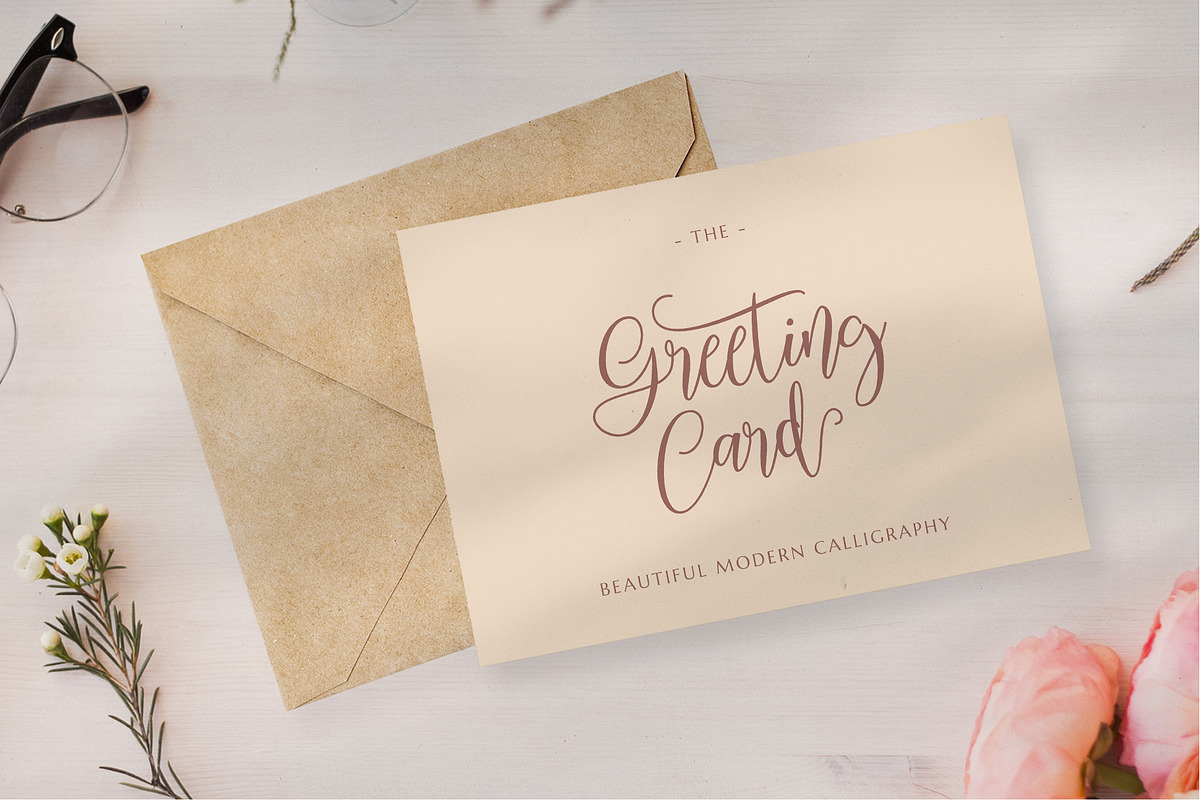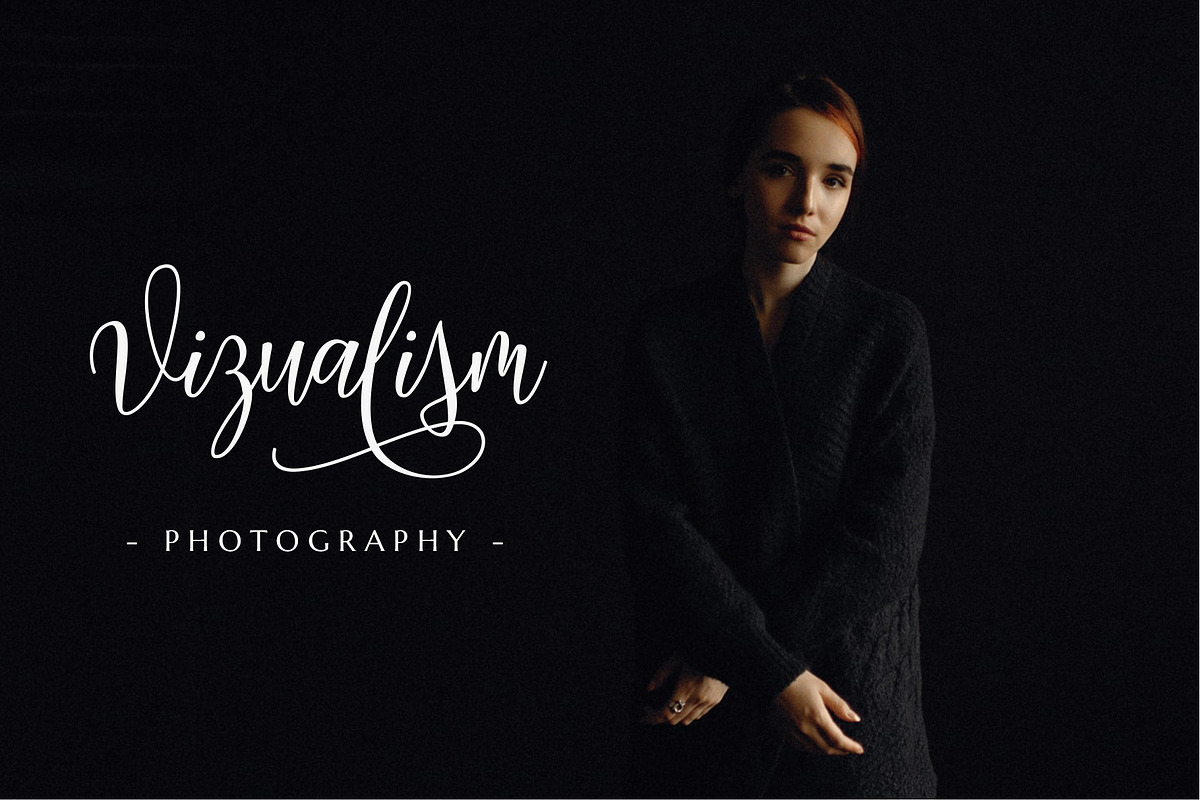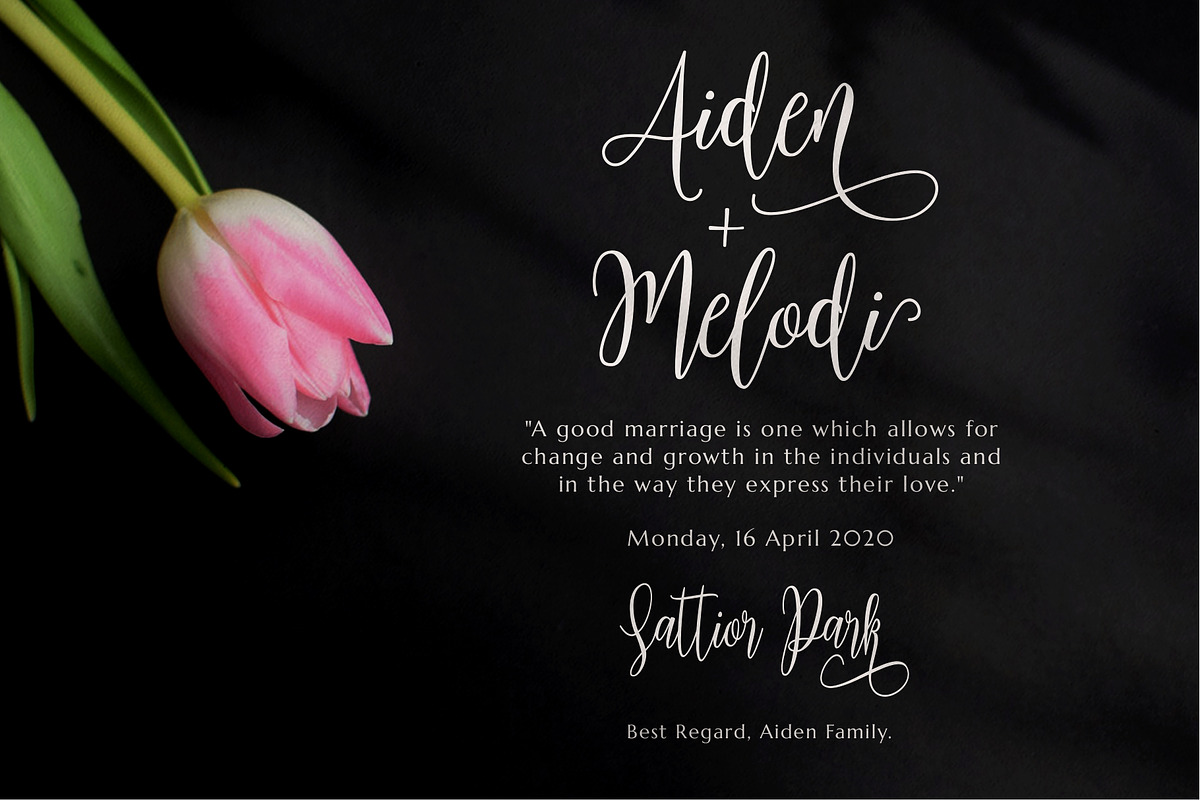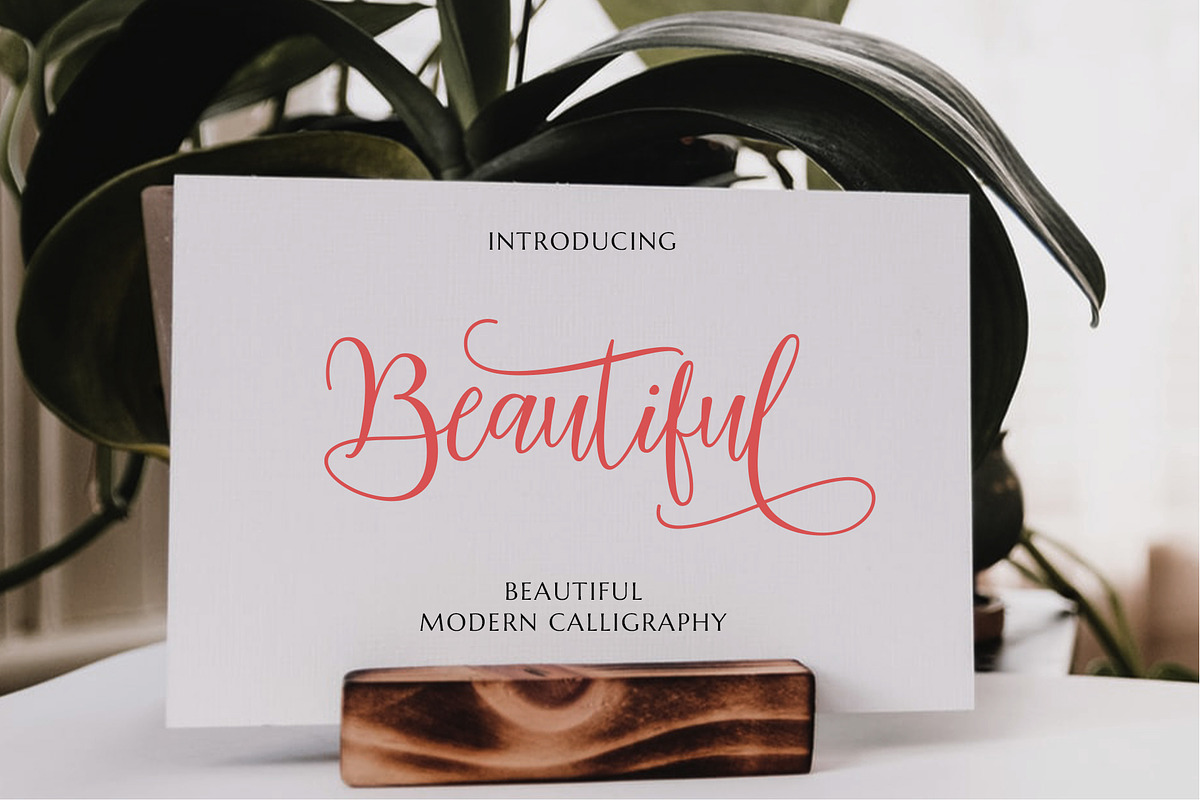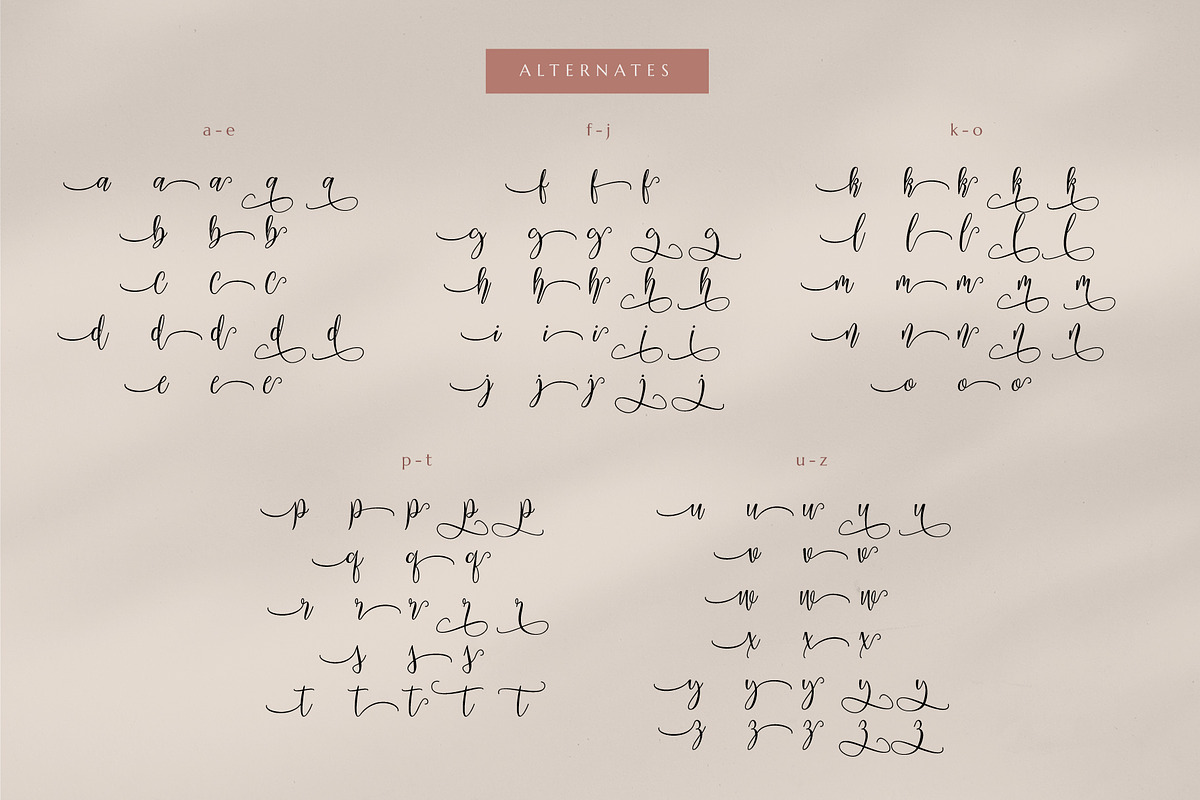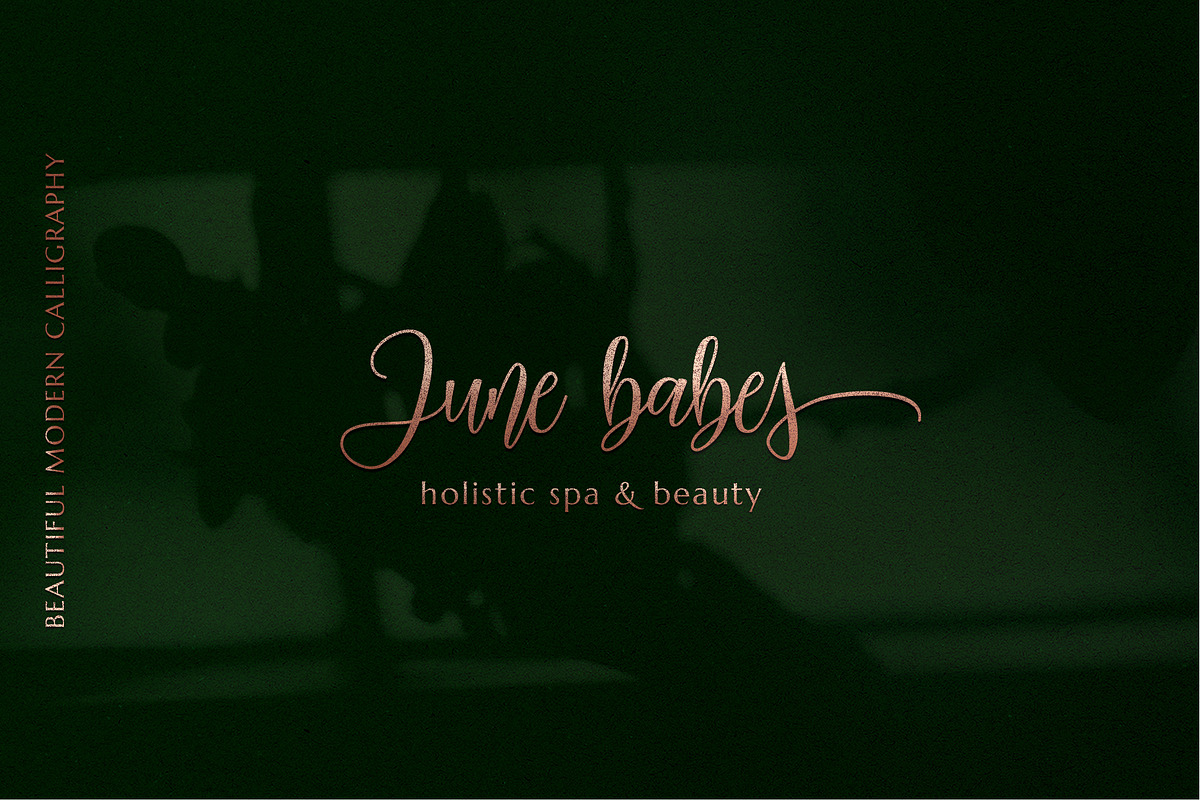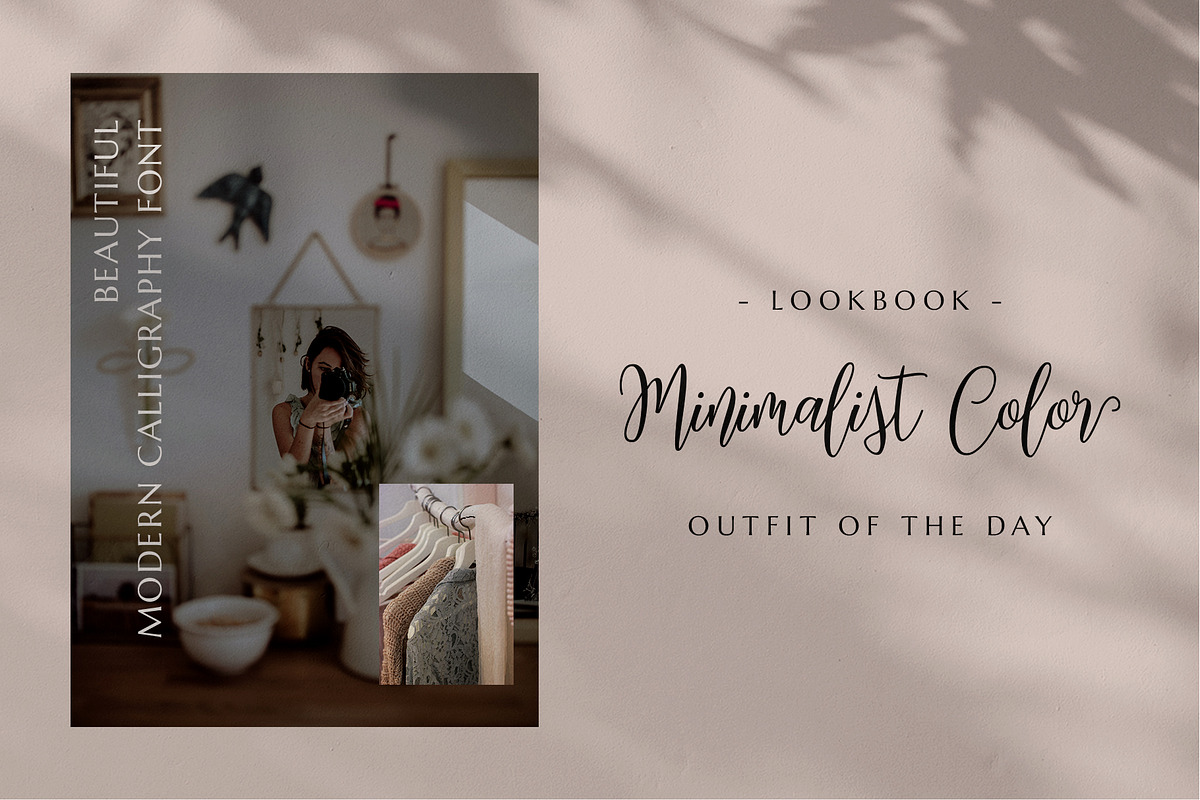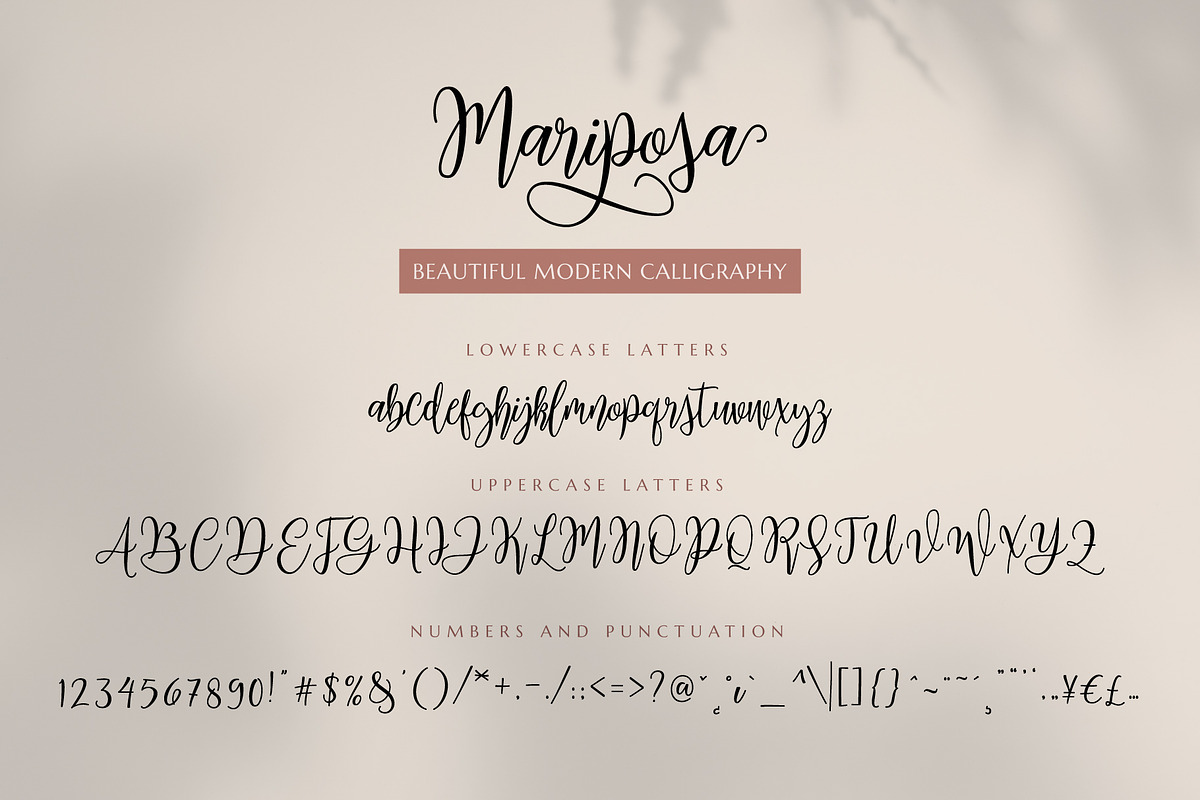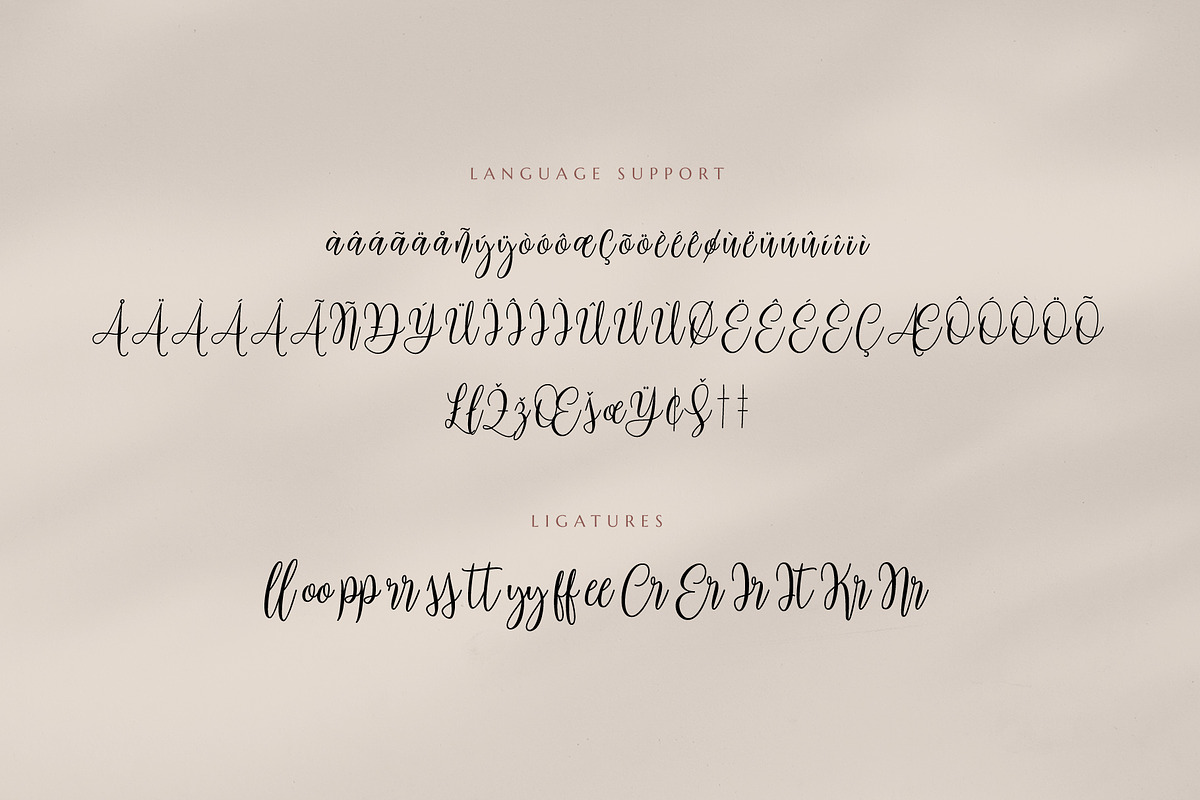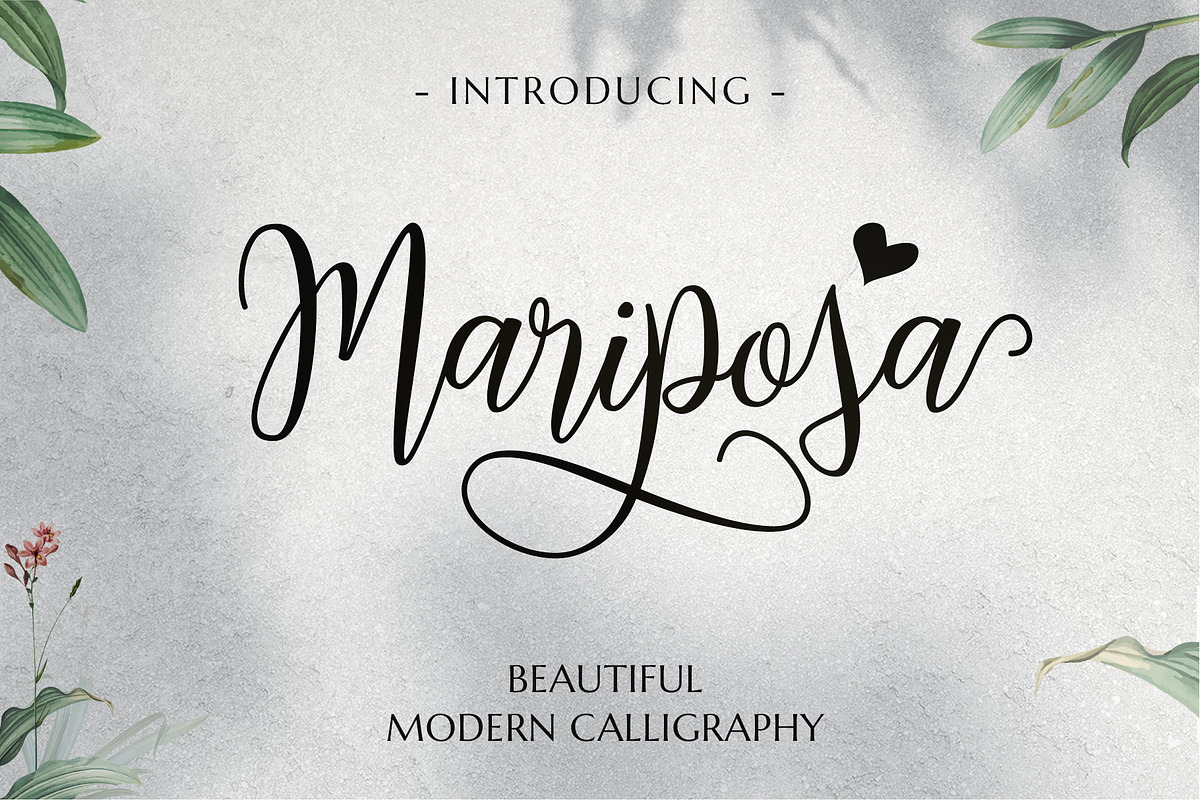
Mariposa Script Calligraphy
Mariposa Script Calligraphy is a modern handwritten font that feels beautiful classy, elegant, and modern. It is perfectly suited for a wide variety of projects, as to signature, stationery, logo, wedding, typography quotes, magazine or book cover, website header, clothing, branding, packaging design and more.
This font available: OTF, TTF, Multilingual Support, It also features a wealth of special features including alternate glyphs and ligatures. Easy to instal Mac and Windows.